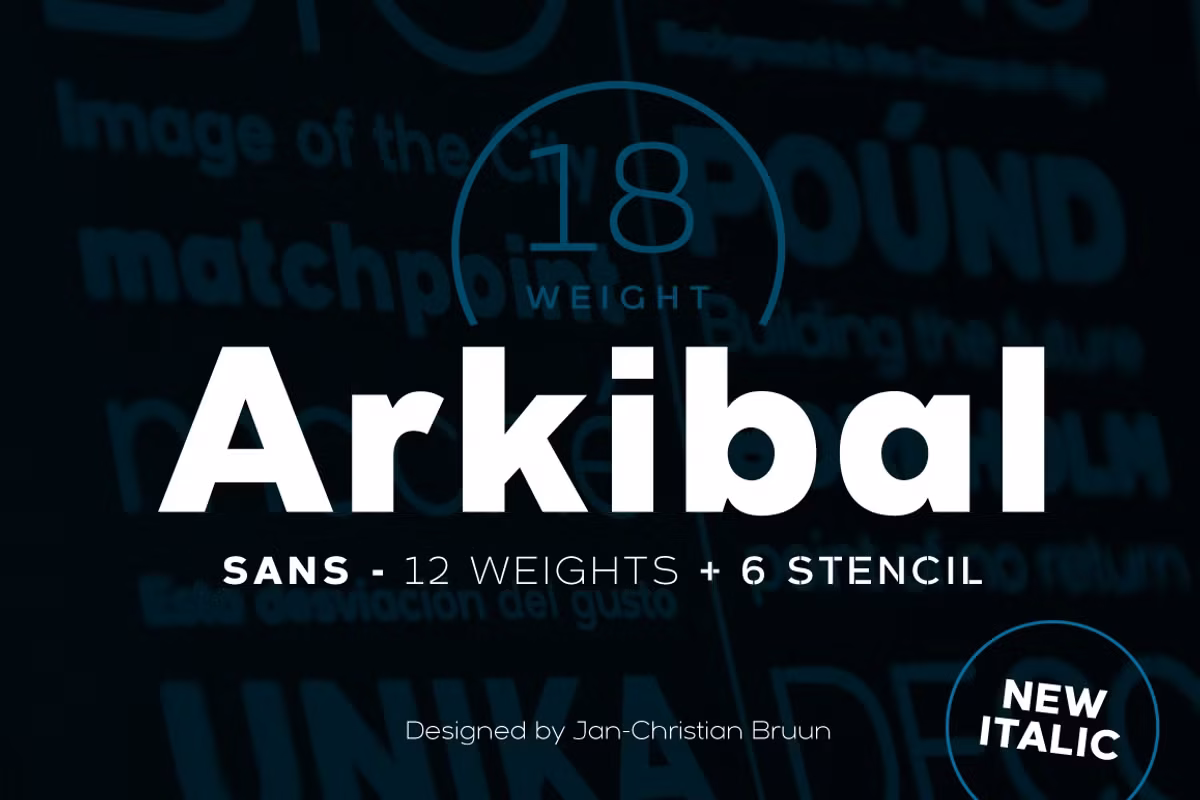
Arkibal Sans Font Free Download is a clean, modern sans serif typeface with a strong historical foundation and contemporary finesse. Inspired by vintage Danish signage and lettering from the early 20th century, Arkibal Sans blends timeless functionality with sleek, minimal design—making it ideal for branding, editorial content, corporate identity, web interfaces, and signage systems.
With a wide range of weights and excellent legibility, Arkibal Sans performs beautifully in both headlines and body text, giving your designs a refined and professional appearance. It’s perfect for designers seeking a font that is both versatile and visually balanced.